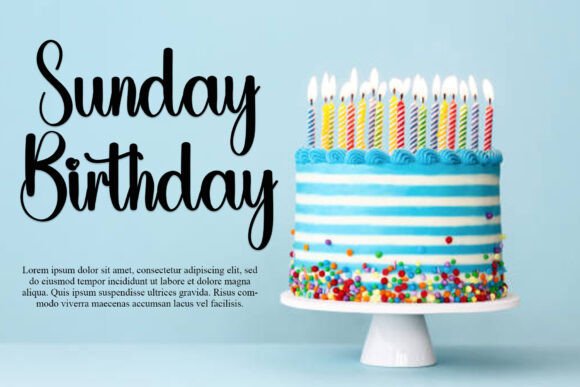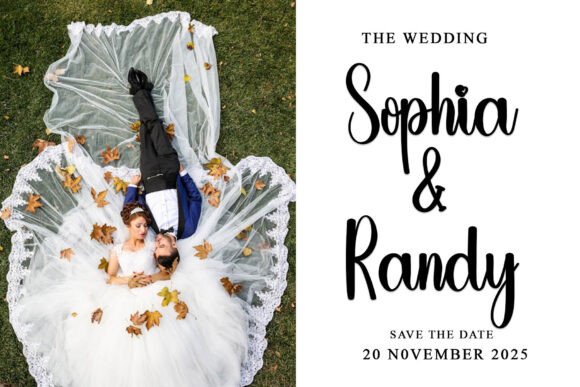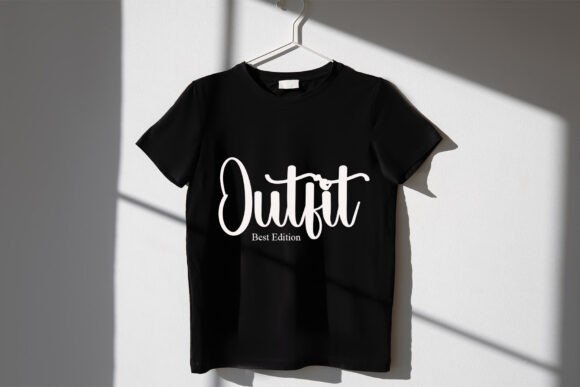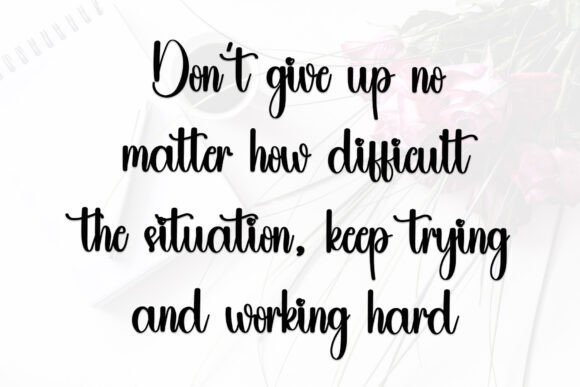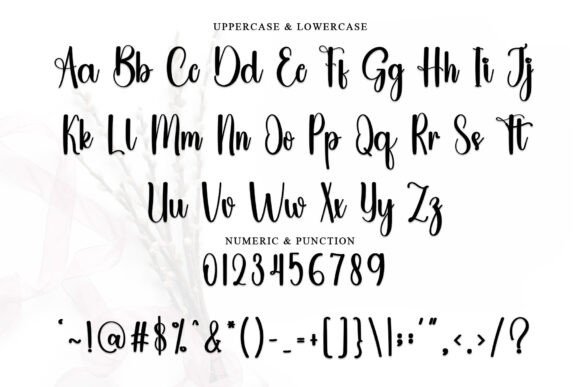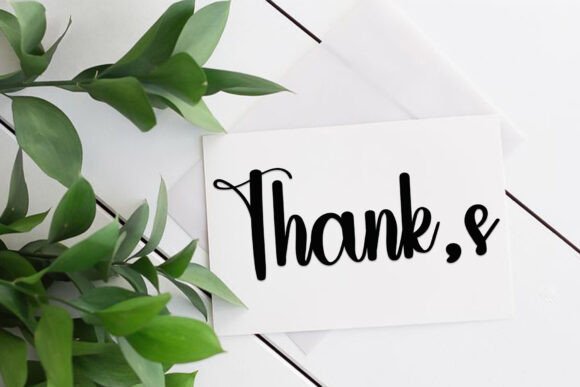
The Catch: Discovering the Charm of Fishing Font
I’ll never forget the design project that led me to discover Fishing Font. I was working on a branding campaign for a new outdoor gear company, and I needed a font that would evoke a sense of adventure and nostalgia. As I scrolled through font after font, nothing seemed quite right – until I stumbled upon Fishing Font. Its unique, handwritten charm instantly caught my attention, and I knew I had found the perfect fit.
An Honest Review: What I Love (and What to Watch Out For)
Fishing Font has quickly become one of my go-to fonts for creative projects. Here’s what I love:
- ✨ Unique, handmade feel that adds a touch of personality to any design
- ✅ Beautiful, flowing script that’s perfect for quotes, logos, and branding
- ✅ Extensive character set, including support for multiple languages
Of course, no font is perfect. Here are a few quirks to keep in mind:
- ⚠️ Some users may find the font a bit too ornate or decorative for certain projects
- 🤔 Limited availability of certain OpenType features, such as ligatures or stylistic alternates
The Story Behind Fishing Font
Fishing Font was designed by a talented typographer with a passion for the outdoors. Inspired by the gentle curves of fishing lines and the rustic charm of wooden boats, the designer aimed to create a font that would evoke a sense of adventure and tranquility. The result is a beautiful, handmade font that’s perfect for creative projects.
| Font Name | Fishing Font |
| Author | NYA Letter |
- Q: What type of projects is Fishing Font best suited for?
- A: Fishing Font is perfect for branding, logos, quotes, and any design project that requires a touch of personality and elegance.
- Q: Does Fishing Font support OpenType features?
- A: Yes, Fishing Font supports some OpenType features, such as glyphs and stylistic alternates. However, the availability of these features may vary depending on the design platform.